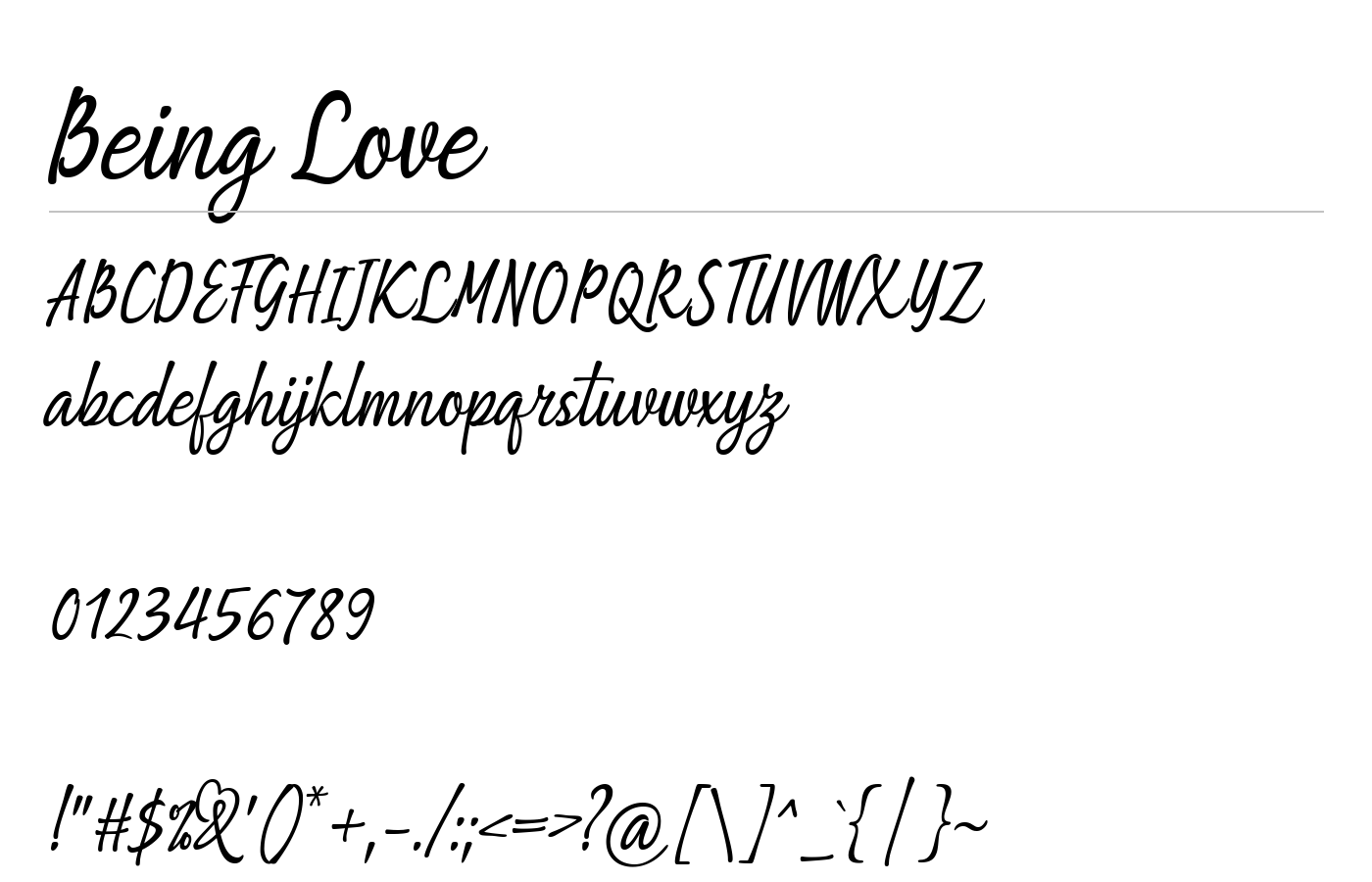
Being Love is a graceful script font characterized by its elegant, handwritten style with smooth, flowing strokes and a slender weight. Its tall x-height and slightly condensed letterforms give it a modern yet personal feel, making it perfect for romantic, feminine, or artistic branding and design projects like invitations, logos, and fashion packaging. This font's delicate charm and readability suit both display text and short passages where a touch of warmth and sophistication is desired.
Being Love Font
About Being Love Font